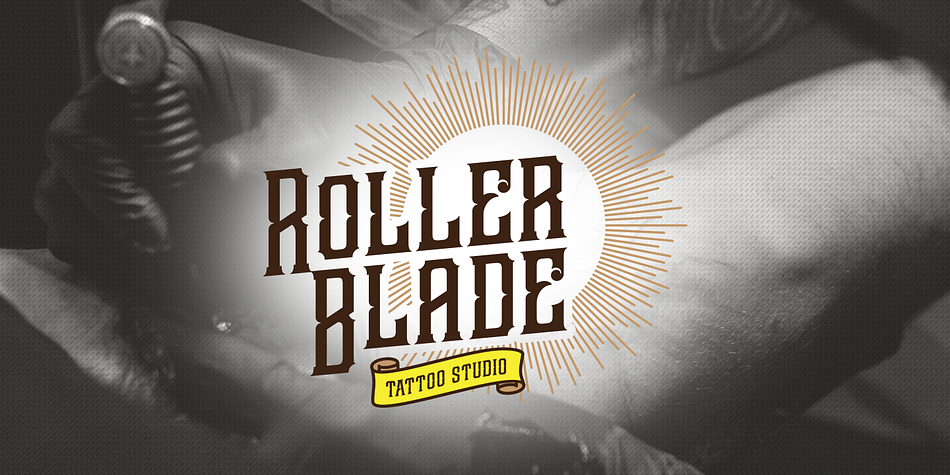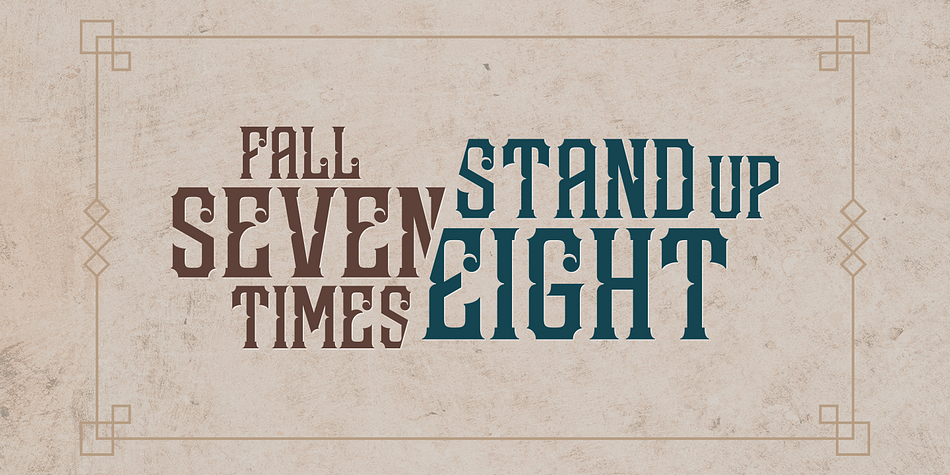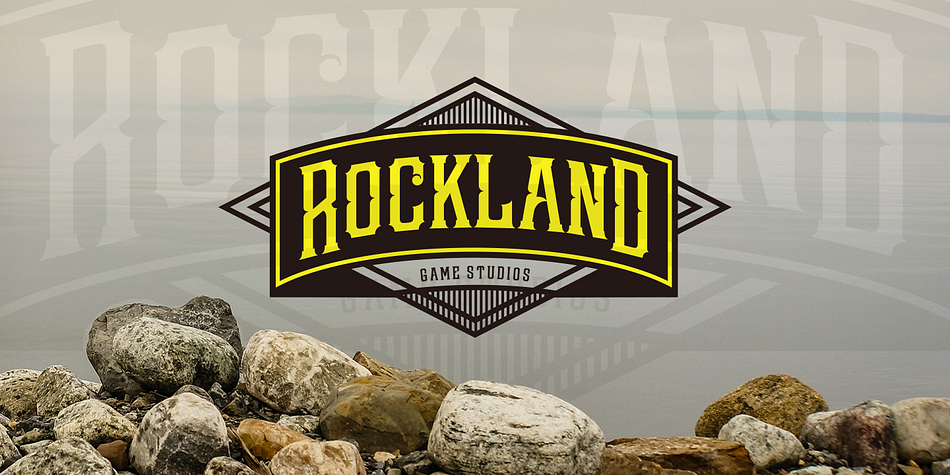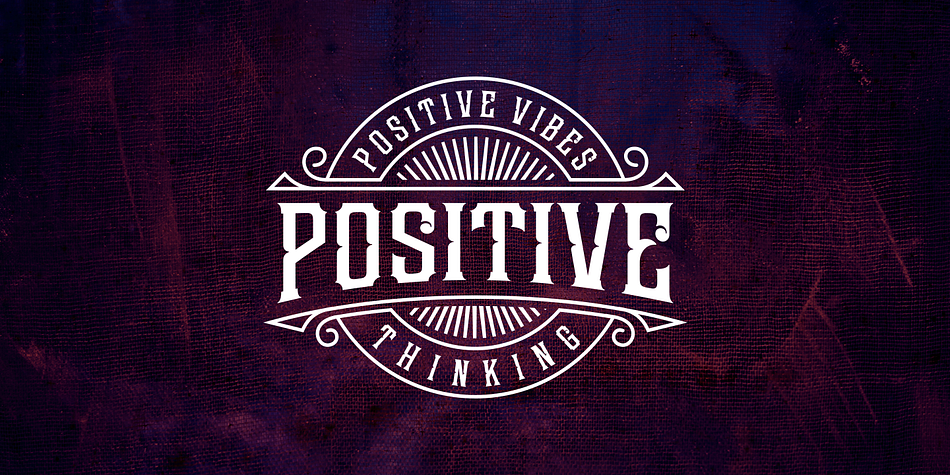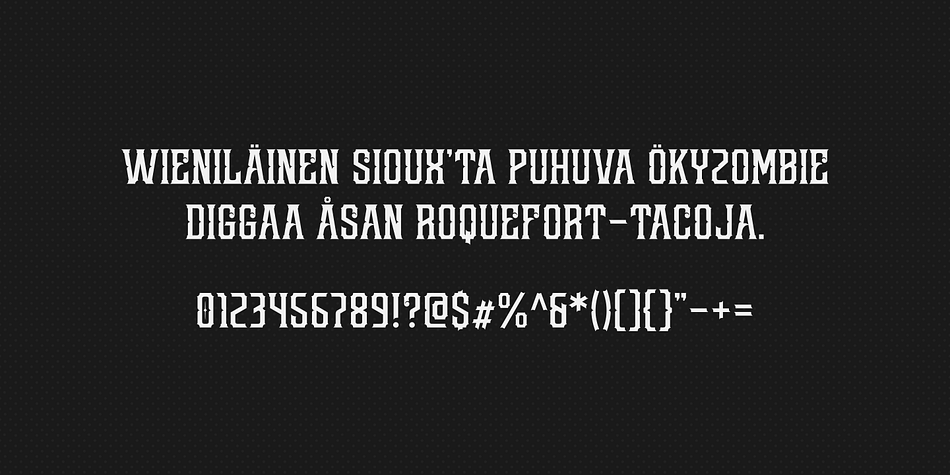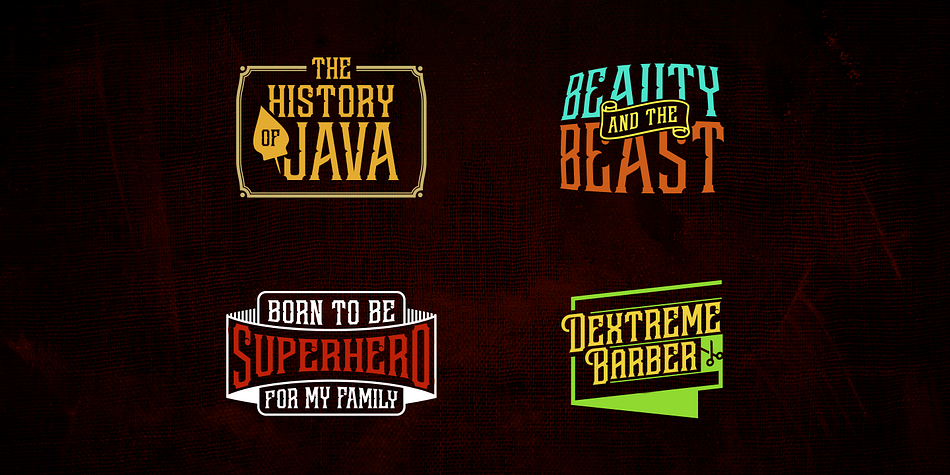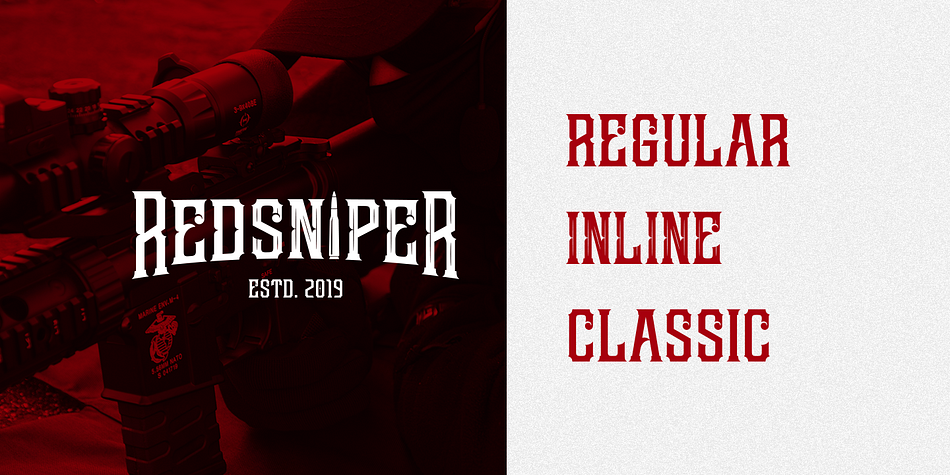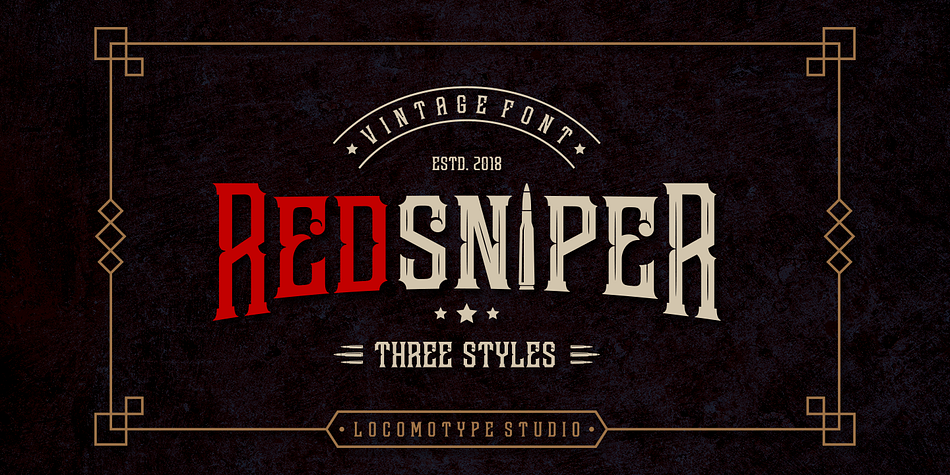
Redsniper is a display serif and wood type font family. This typeface has three styles and was published by Locomotype.
Redsniper is a brand new font with a vintage look inspired by Victorian typography. Available in three styles with different variations including regular, inline and classic, making it easier to design a variety of typography.
Redsniper font is suitable for making label designs, posters, logotypes, signage etc. especially when you want a retro and old-fashioned design.